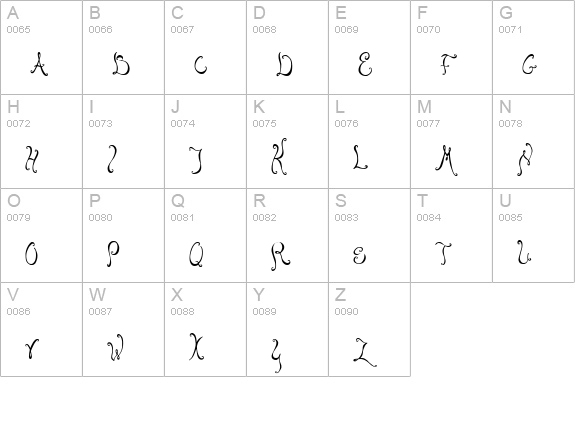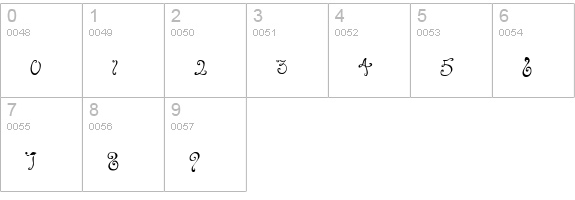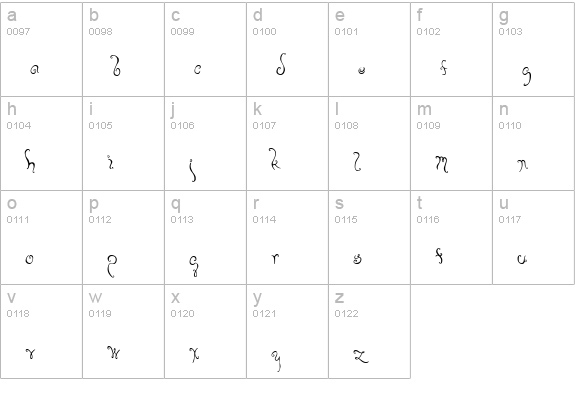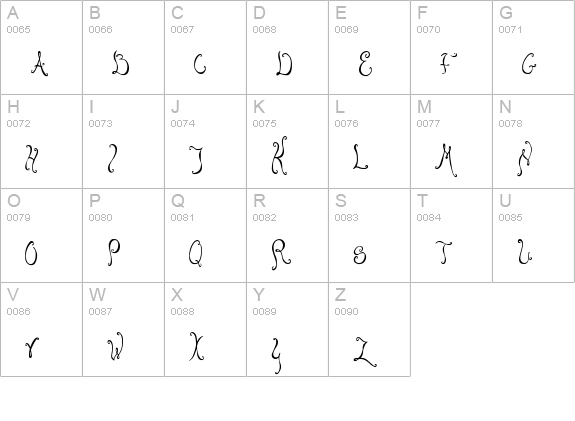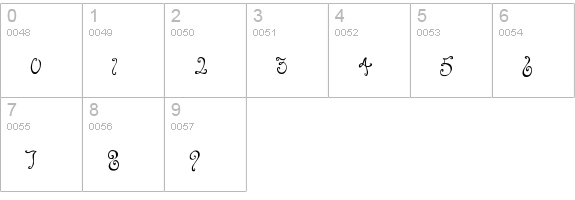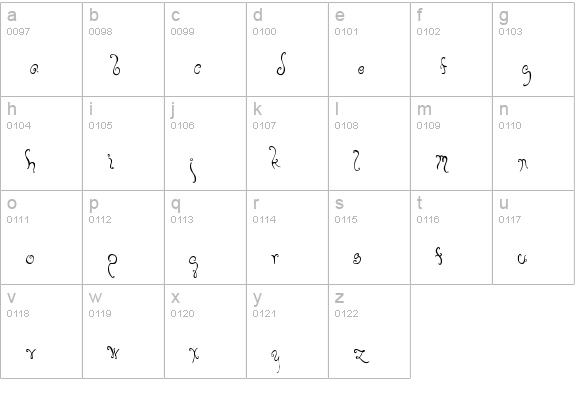
Bellyfish Font Details
The Bellyfish font is a playful and whimsical typeface that brings a touch of charm to any design project. With its rounded edges and friendly appearance, Bellyfish is perfect for adding a touch of personality to your creations. This font is free for personal and commercial use, making it a versatile choice for a wide range of applications. Whether you're designing a greeting card, creating a logo, or working on a poster, Bellyfish is sure to make your text pop. You can freely download the Bellyfish font at FontsMarket.com and start using it in your projects today.